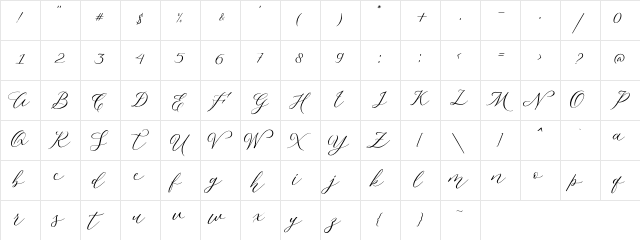
Malliandra Script DEMO Regular
Design Context for Malliandra Script DEMO Typeface
Malliandra Script DEMO brings a calligraphic fluidity to the page — its connecting strokes and expressive curves give it an unmistakably human quality.
Font Pairing: Combine Malliandra Script DEMO with a simple geometric sans for maximum contrast — the tension between flowing curves and clean structure is a classic typographic pairing.
Pro Tip: Pair Malliandra Script DEMO with a clean sans-serif for supporting text. The contrast between fluid script and geometric structure creates an elegant typographic hierarchy.